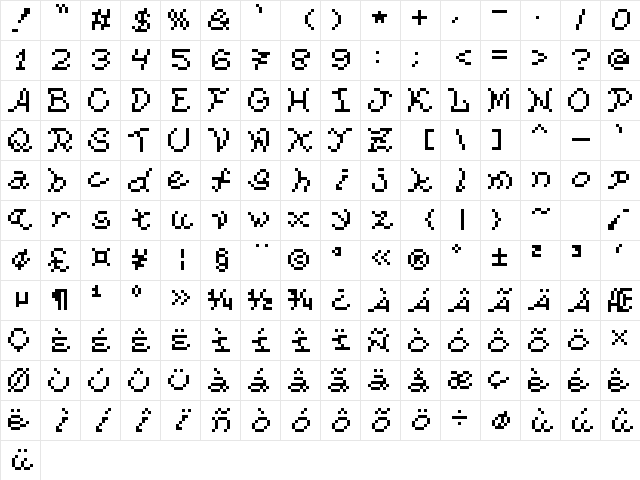
AdventurersScrib Medium Free Font
AdventurersScrib Medium
Design Context for AdventurersScrib
AdventurersScrib is a composed and adaptable typeface that performs quietly and consistently across a wide range of design contexts.
Pro Tip: Use AdventurersScrib in both headline and body roles to test its range before committing to a single application.